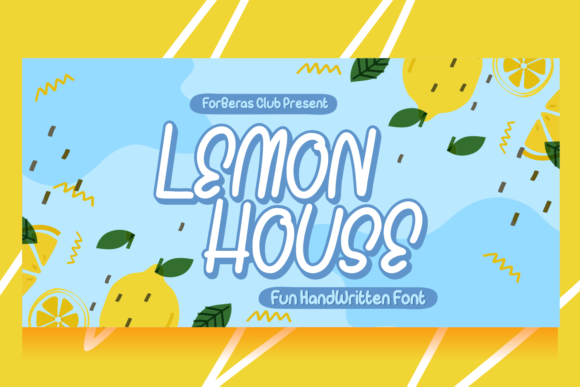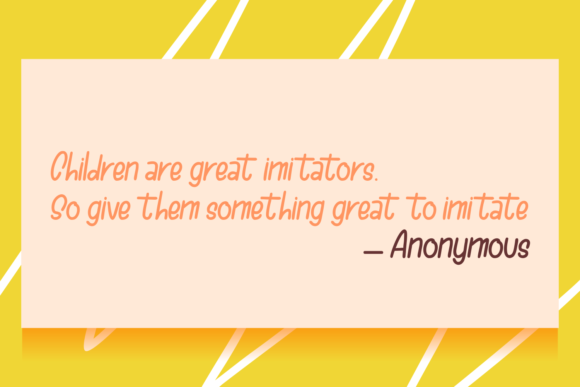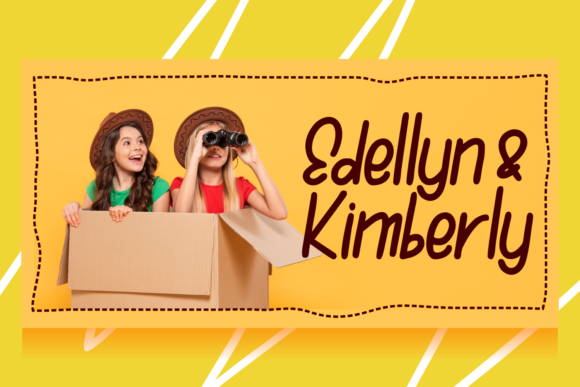
About Lemon House Font
Lemon House is a simple and clean handwritten font. This adaptable font will look great on a variety of design ideas. It will add a fun and friendly touch to each of your projects!